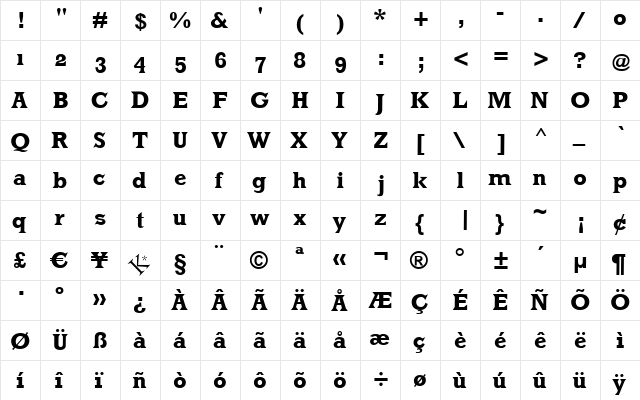
MKLatin Bold
Design Context for MKLatin Typeface
MKLatin is a composed and adaptable typeface that performs quietly and consistently across a wide range of design contexts. The heavy weight commands attention and anchors typographic hierarchies.